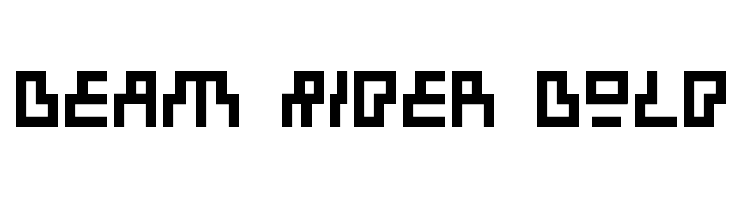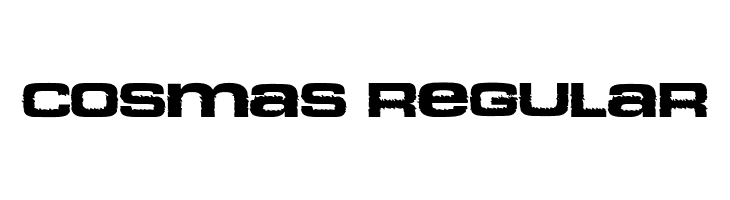
A bold, handwritten font with a playful and energetic style.
A bold, 3D-effect font with sketch-like strokes and a playful, artistic style.
A bold, geometric font with a futuristic and digital aesthetic.
A playful, casual handwritten font with dynamic strokes.
A playful, polka-dotted decorative font with bold, rounded characters.
A futuristic, geometric font with sharp angles and a condensed style.
A graceful, flowing script font with elegant, connected strokes.